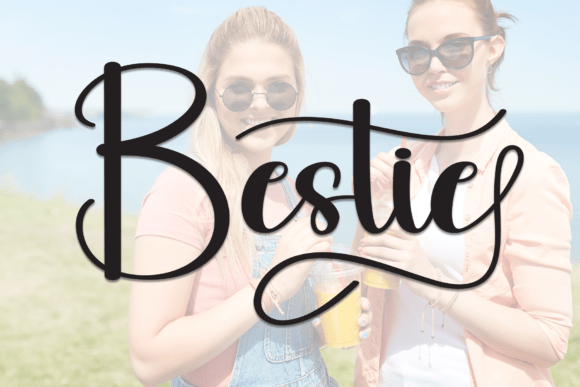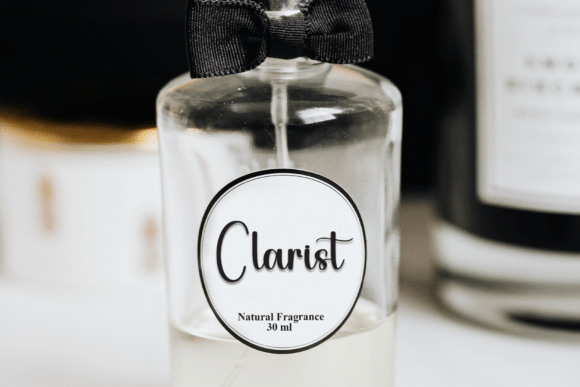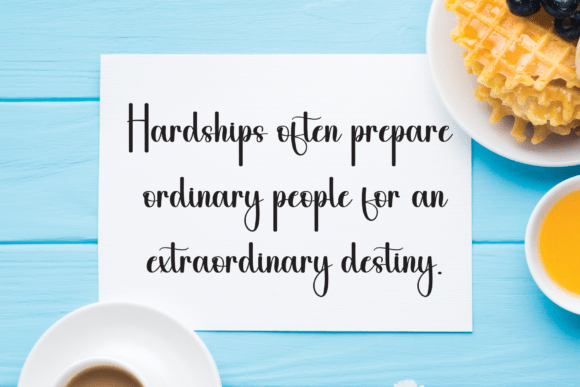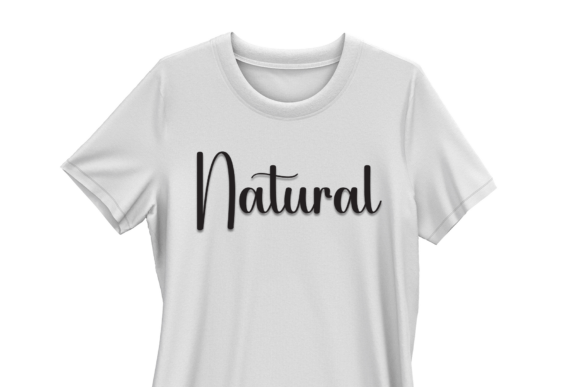
About the Bestie Font
The Bestie Font is here to transform your projects with its distinctive character and style. Bestie is a stylish handwritten script font that exudes elegance and charm with its fluid, graceful strokes. Perfect for branding, invitations, and stationery, it adds a personal and sophisticated touch. The smooth curves and natural flow create a timeless, refined look for any design.